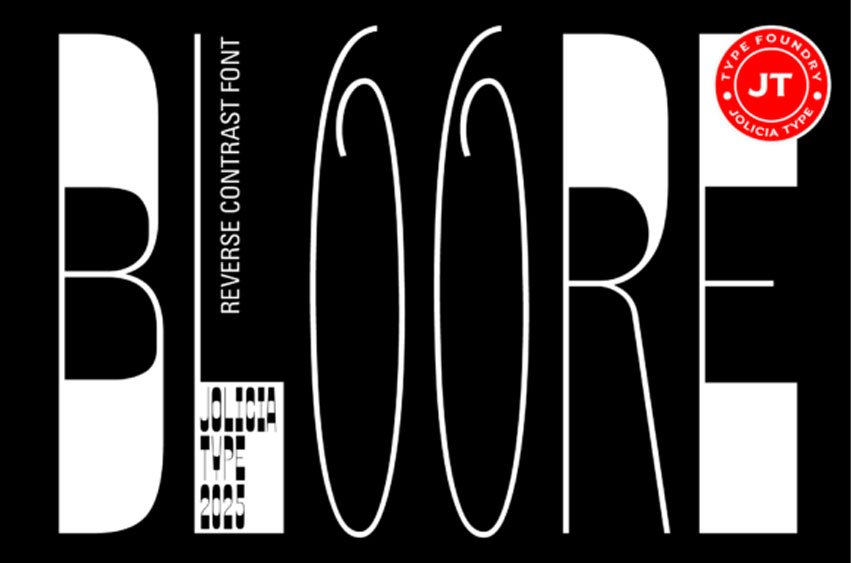
Bloore Font is a high-contrast reverse display sans-serif typeface designed with a condensed structure for maximum visual impact. Its sharp vertical tension and narrow proportions make it highly effective for standout headings, bold branding, and expressive editorial layouts.
This exceptionally bold BLOORE font is defined by its dramatic, oversized characters, where the thick and thin strokes are inverted, pulling weight into unexpected areas for a captivating effect. The vertical stress and extremely high contrast create an instantly memorable and modern aesthetic, perfect for arresting magazine spreads, music artwork, experimental fashion branding, and powerful event posters. The distinct and unapologetic style of the BLOORE typeface ensures that your message cannot be ignored, offering a unique glyph set for designers who demand an innovative and graphic-heavy display solution. Use the commanding BLOORE font to redefine your headlines and stand out boldly in any creative landscape.
Perfect for headlines, posters, logos, fashion branding, and experimental design, JT Bloore is built to command attention while offering creative flexibility through its alternate characters.